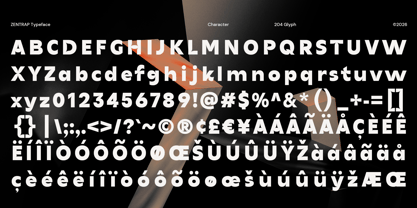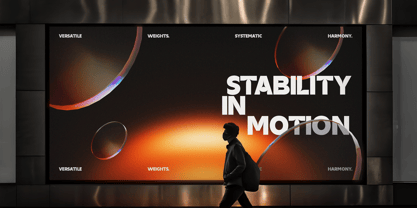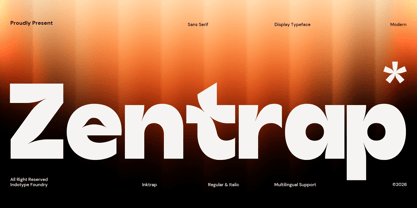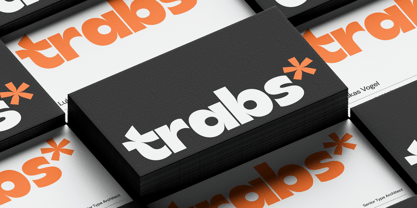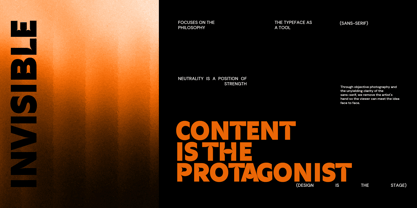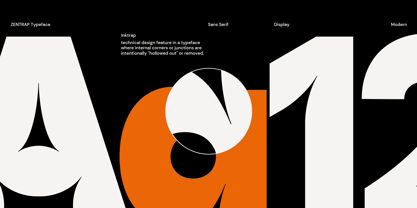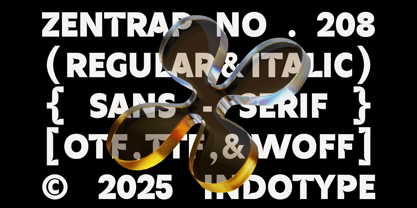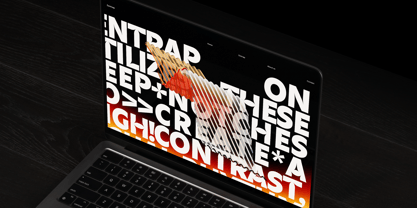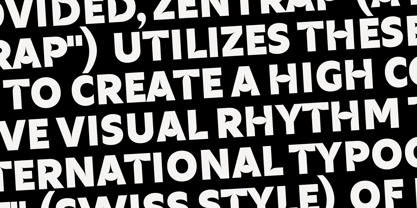
IT Zentrap
por Indotype
La familia tipográfica IT Zentrap fue diseñada por Dede Kurniawan y publicada por Indotype. IT Zentrap contiene 2 estilos y opciones de paquete familiar. Más información sobre esta familia
Zentrap is a striking and intelligent display sans-serif defined by its distinctive ink trap detailing—a functional typographic feature turned bold aesthetic statement. These sharp, intentional cuts at the joints of letterforms give Zentrap a unique architectural quality, creating high contrast and visual interest that stands out at any scale. It’s a font where technical precision meets modern, graphic boldness. Built for versatility, Zentrap includes both a solid Regular and a dynamic Italic style, complemented by full multilingual support for global application. This combination of sharp detail and clean geometry makes it ideal for tech-forward branding, editorial headlines with an edge, sophisticated packaging, and any design project that aims to look meticulously crafted and confidently modern. • Ideal for: Tech & Startup Branding, Editorial Headlines, Fashion & Design Magazines, Sophisticated Packaging, Web & App Interfaces, Modern Logotypes. • Classification: Sans-Serif, Display, Geometric, Inktrap. • Attributes: Sharp, Modern, Architectural, Intelligent, Bold, Technical, Sophisticated.